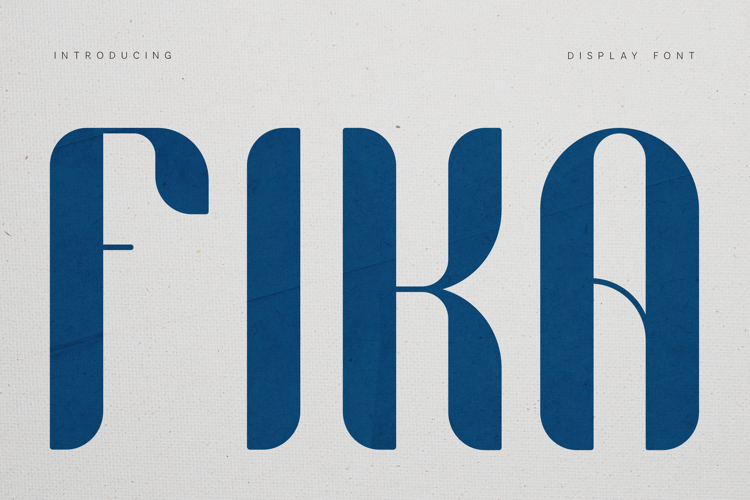
Fika Elegant Decorative Display Serif Font
Fika is a character-rich decorative display serif designed for expressive branding and editorial work.
With sculpted vertical strokes, soft flared terminals, and refined contrast, Fika delivers personality without sacrificing elegance. It’s built for statement headlines, boutique identities, and design projects that need warmth with presence.
The extended multilingual support makes it ideal for global brands seeking distinctive typography.
• Boutique cafés & lifestyle brands
• Fashion campaigns
• Packaging design
• Posters & editorial covers
• Beauty & fragrance branding
• Luxury identity systems
• Numerals
• Extended Latin multilingual support
• Punctuation & symbols
• Clean kerning